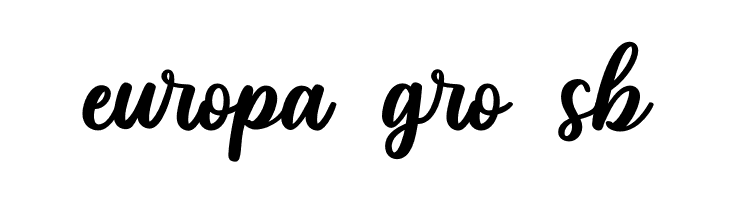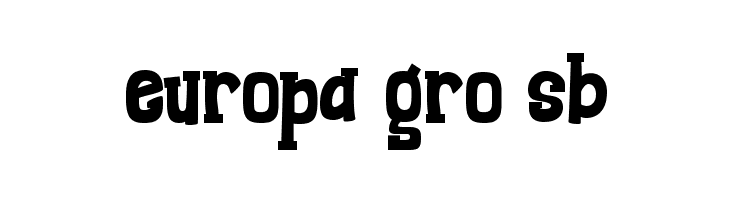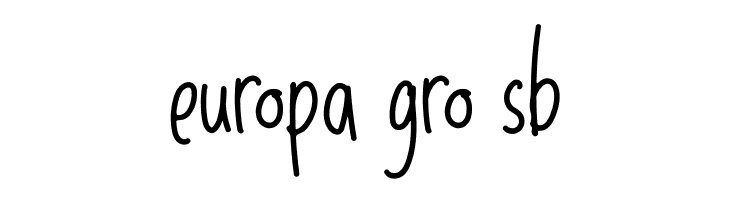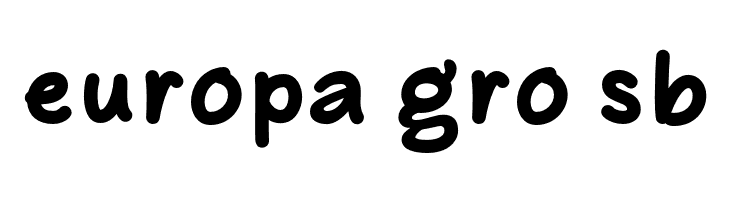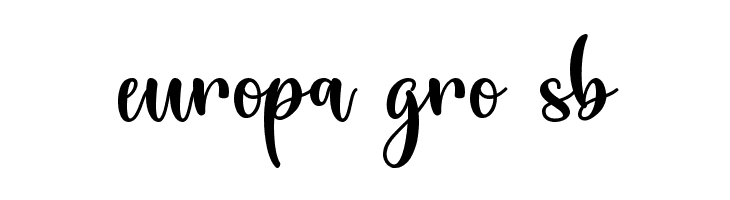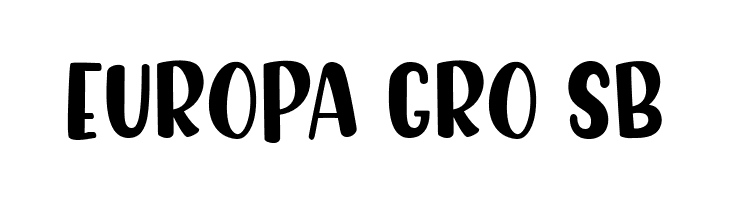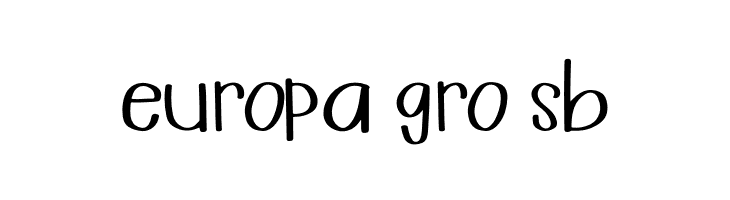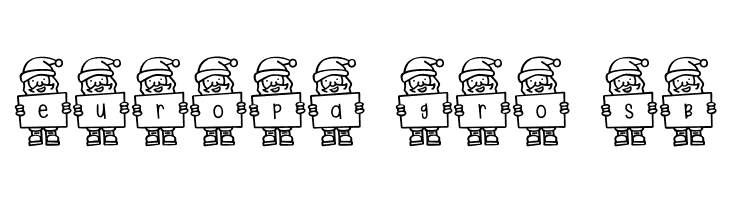
• Speeday Bold
A bold, angular font with a dynamic, forward-leaning design.
• A good day to die
A distressed, grunge-style font with a rugged, textured appearance.
• Monday-Personal Use
A lively, flowing script font with a modern, handwritten style.
• Enjoy Holiday
A bold, playful font with dynamic slanted characters and creative styling.
• SundayHoliday
A playful, handwritten font with tall, narrow characters and a whimsical style.
• Sunny Sunday
A playful, rounded font with a hand-drawn, whimsical style.
• Christmas Style - Personal Use
A festive, flowing script font perfect for holiday-themed designs.
• Sunday Morning
A playful, hand-drawn font with a bold and whimsical style.
• Wonderful Day
A playful, handwritten font with smooth, flowing curves and a whimsical style.
• Merry Santa Letters
A festive font with letters held by cartoon Santa figures, perfect for holiday themes.